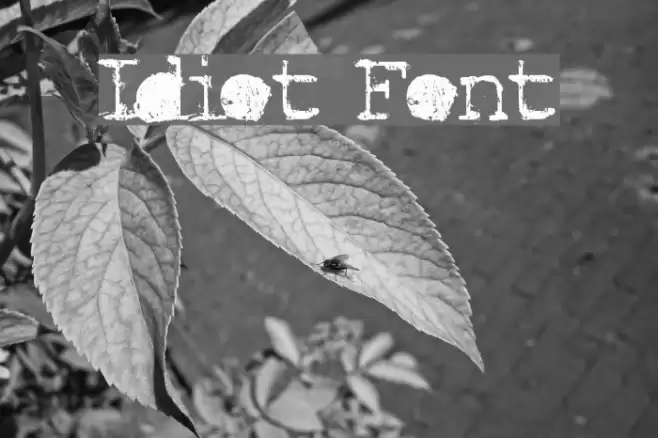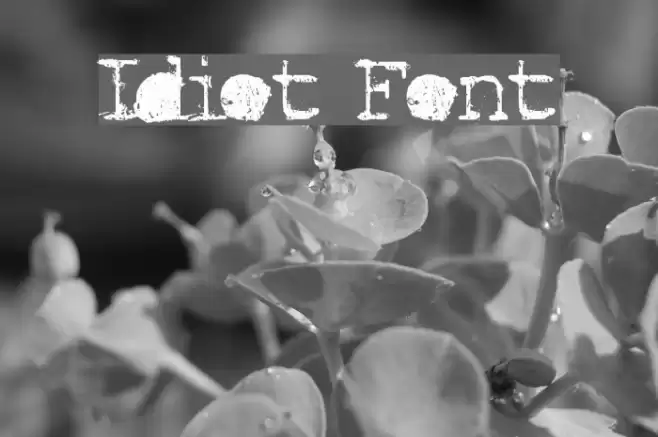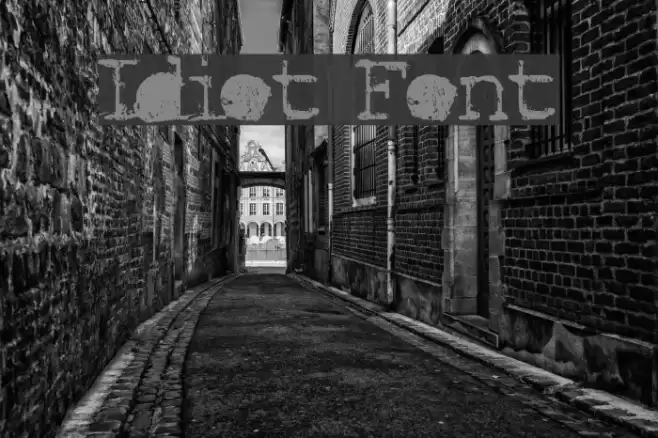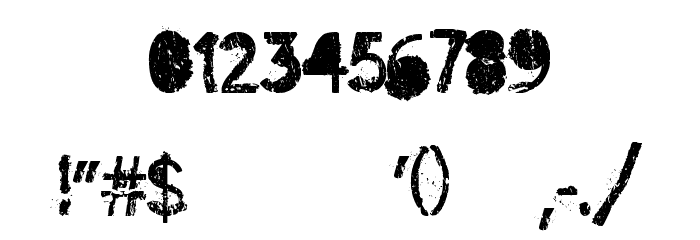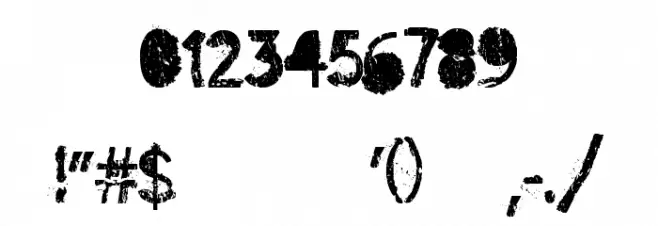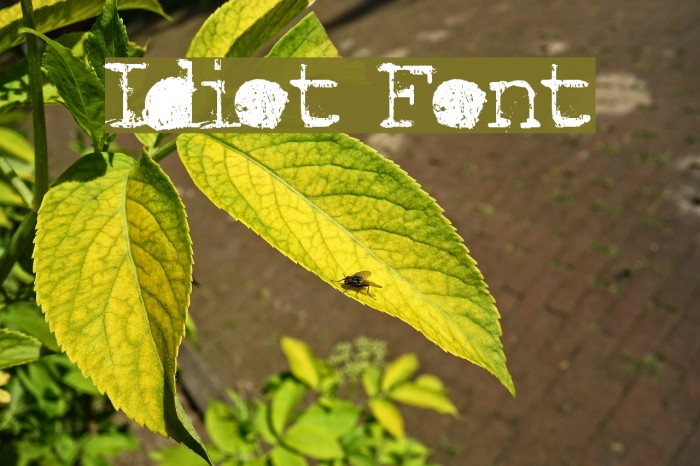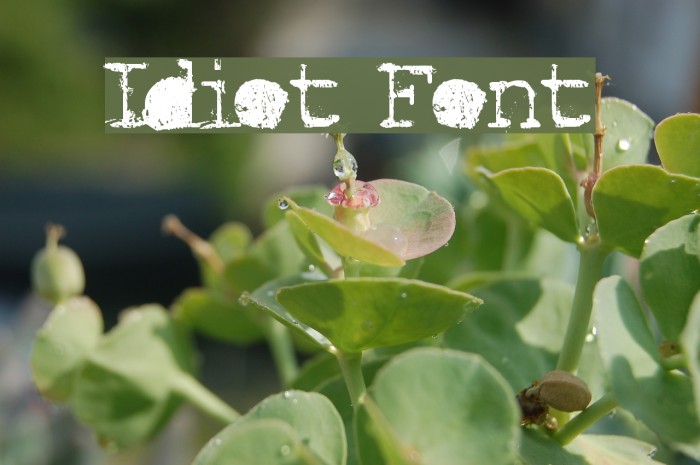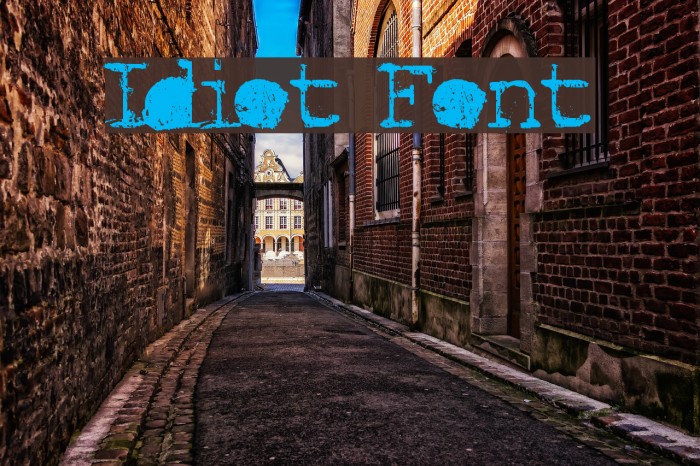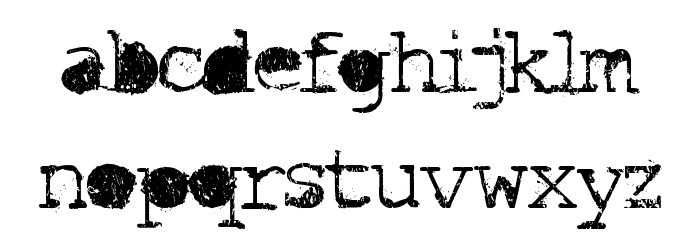
Idiot Font
Idiot Description
This font features a distressed, grunge style with a textured appearance that gives it a worn, vintage look. The characters are bold and have a rough, uneven edge, suggesting a hand-crafted or weathered effect. The uppercase and lowercase letters maintain a consistent style, with the uppercase being slightly more pronounced. Numbers and special characters follow the same distressed pattern, adding to the cohesive aesthetic. This font is ideal for projects that require a rugged, edgy feel, such as posters, album covers, or themed event materials.
A distressed, grunge-style font with a textured, vintage appearance from Decorative fonts.
- Proposed Projects: Ideal for posters, album covers, themed events, and any project needing a rugged, edgy feel.
- Overall Style: Vintage